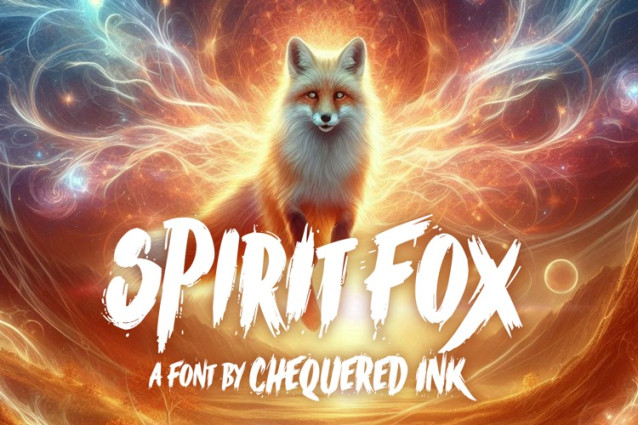
Spirit Fox Font
Spirit Fox Font, inspired by brush lettering-style typography. This font is perfect for a design that makes it more attractive and playful. It was made with a very good level of aesthetics, making this font suitable for a book cover, poster, packaging, merchandise, logotype, and much more.